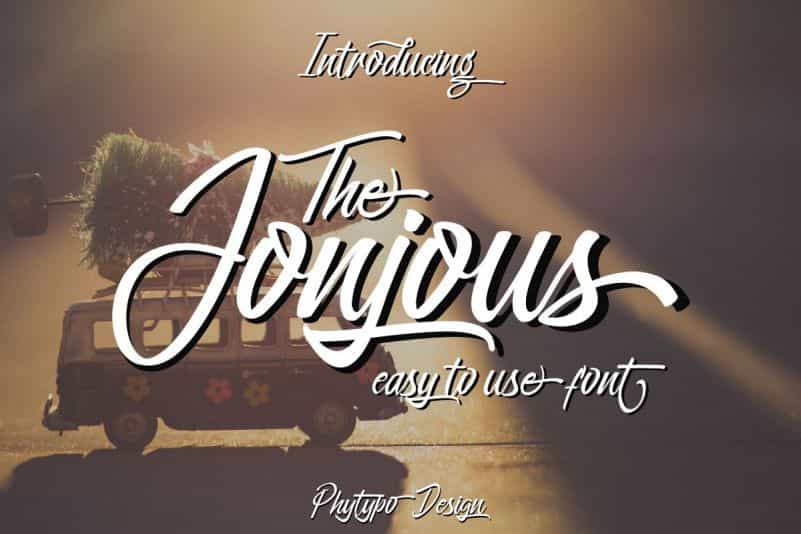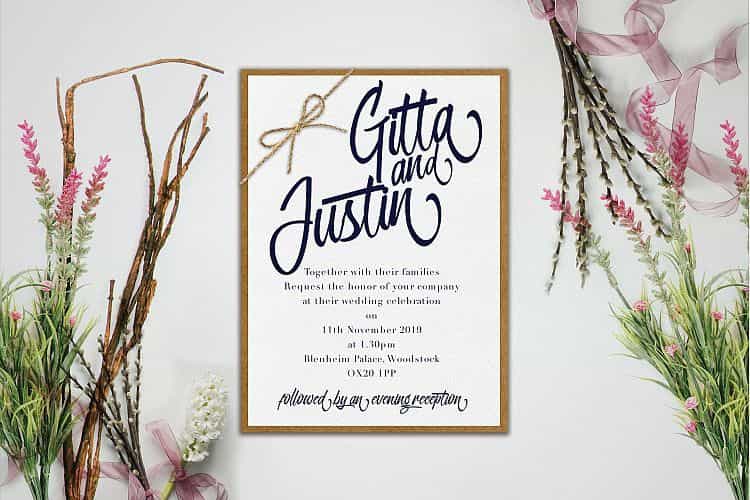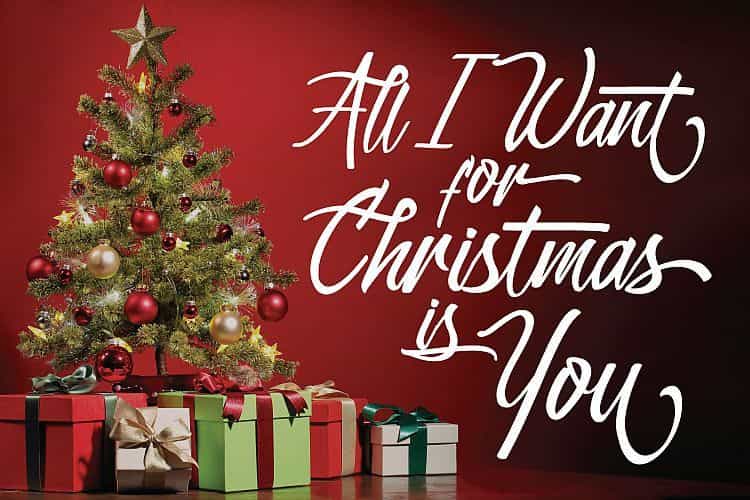
Discover Jonjous Script Font, part of the Commercial Calligraphy collection—a versatile and unique font perfect for adding a personal touch to your projects. Download it for free and enjoy crafting designs with style, from invitations to social media posts. This font is available exclusively for personal use, giving you the freedom to create without limits. Unlock your creativity with Jonjous Script Font today!
Introducing Jonjous Font. The flag was developed by Phytypo Design. This font is simple to use font that can make you easy to create craft. Ideal for branding projects, logos, book cover, t-shirts, social media posts, advertisements, packaging, products, labels, watermarks, invitations, stationery, and any project.